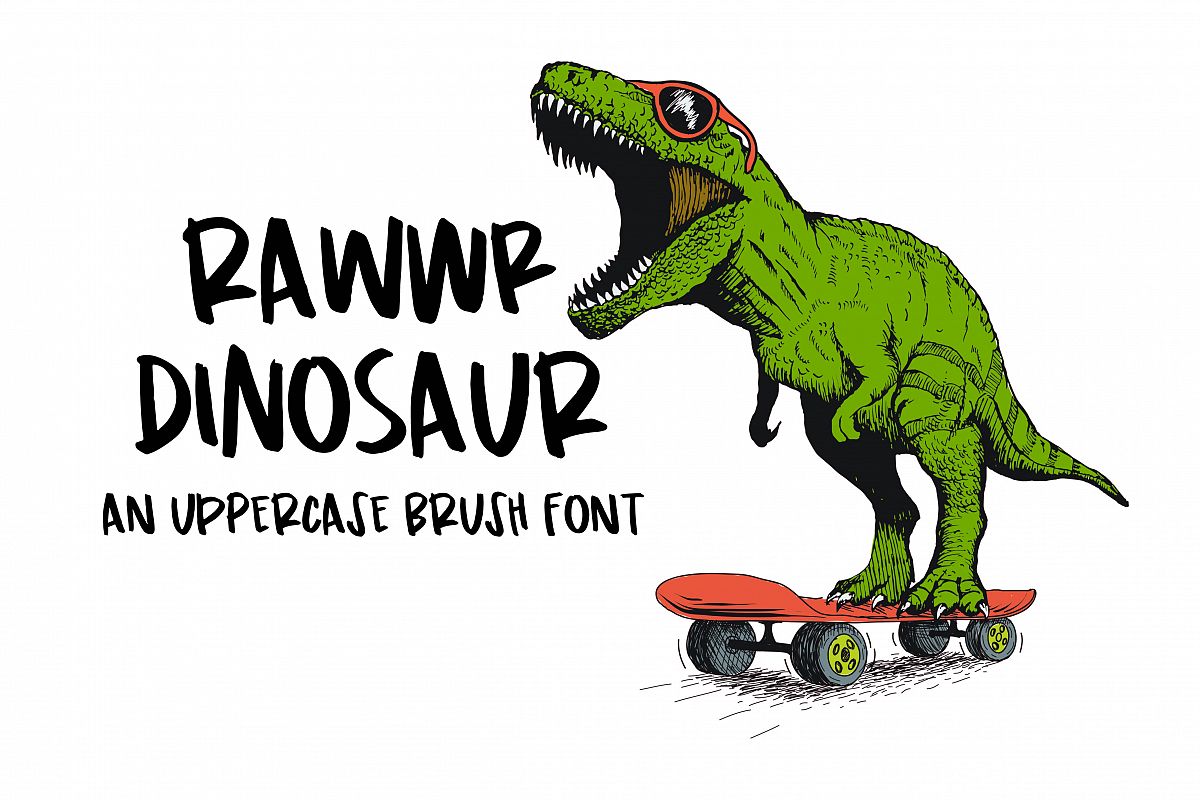
Rawwr Dinosaur
Meet Rawwr Dinosaur! A fun and messy brush font PERFECT for creating awesome apparel and such for the little dudes in your life! Rawwr Dinosaur focuses on the beautiful, messy, unpredictable that are little boys (and girls!) Quick brush strokes make for a more 'manly' feel versus script or bubbly that usually focuses on girlie items!
Rawwr Dinosaur